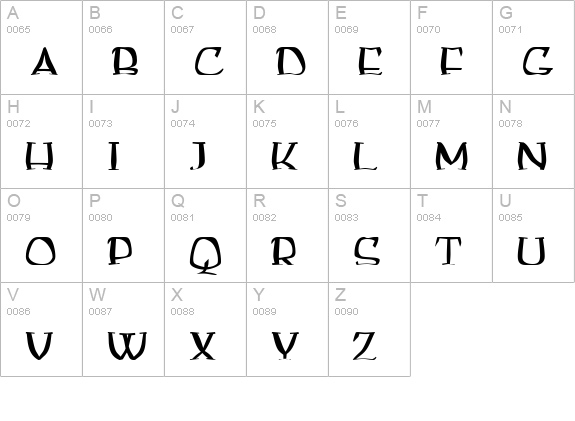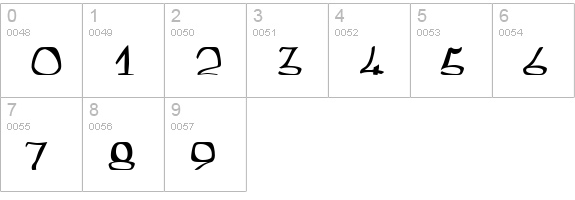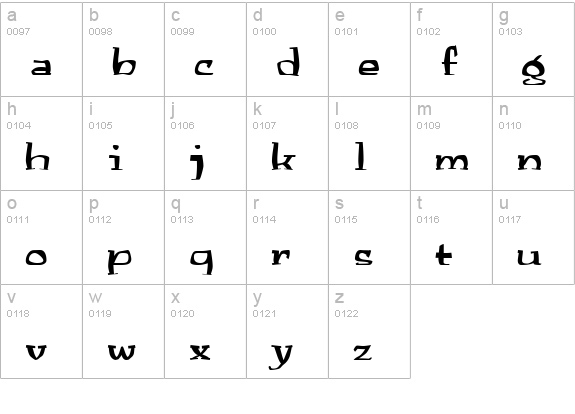
AnarckWarp Font Details
AnarckWarp font is a dynamic and eye-catching typeface that exudes a sense of energy and creativity. Its unique design features sharp angles and bold lines that give it a modern and edgy look. Perfect for making a statement in headlines, posters, and branding projects, AnarckWarp font will surely grab the attention of your audience. What sets AnarckWarp font apart is not only its striking appearance but also the fact that it is completely free to use. This means you can add a touch of personality and flair to your designs without any additional cost. You can easily download AnarckWarp font for free at FontsMarket.com, where a wide range of other high-quality fonts are also available for your creative projects. Stand out from the crowd and elevate your designs with the bold and energetic AnarckWarp font today!